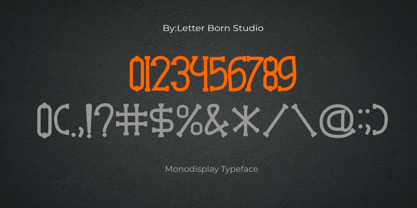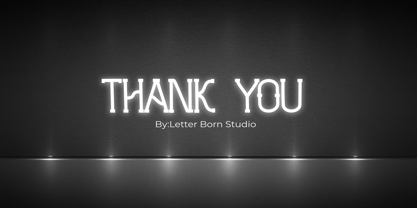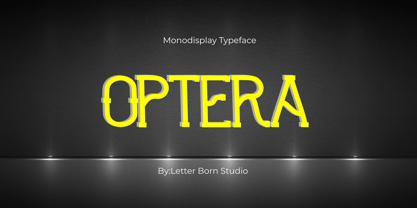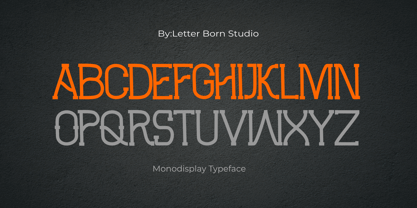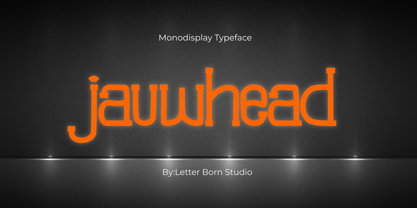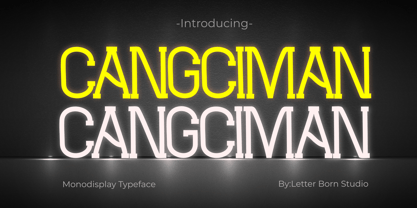
Cangciman
The Cangciman Font Family was designed by Firman Satrio and published by Letter Born Studio. Cangciman contains 1 styles. More about this family
Cangciman is a modern monospaced font with a unique touch that combines a bold and elegant feel. Designed for optimal readability, this font is perfect for various purposes, from web design to app interfaces. With clean, proportional lines, Cangciman creates a professional yet warm impression. The perfect choice for those looking for a stylish, functional, and easy-to-read monospaced font.